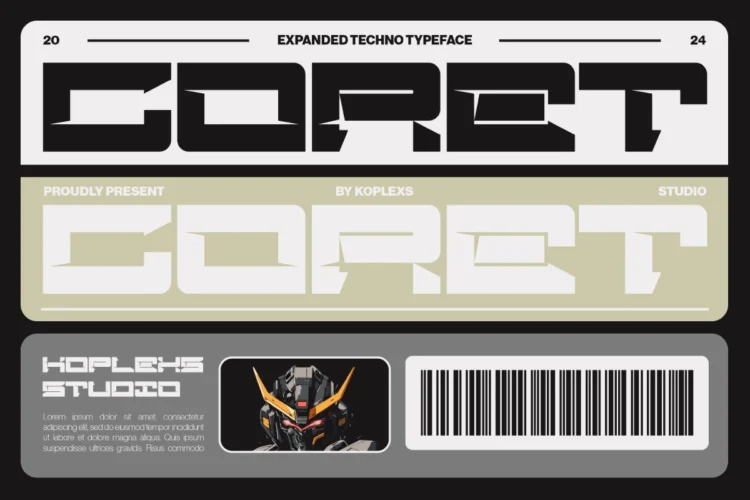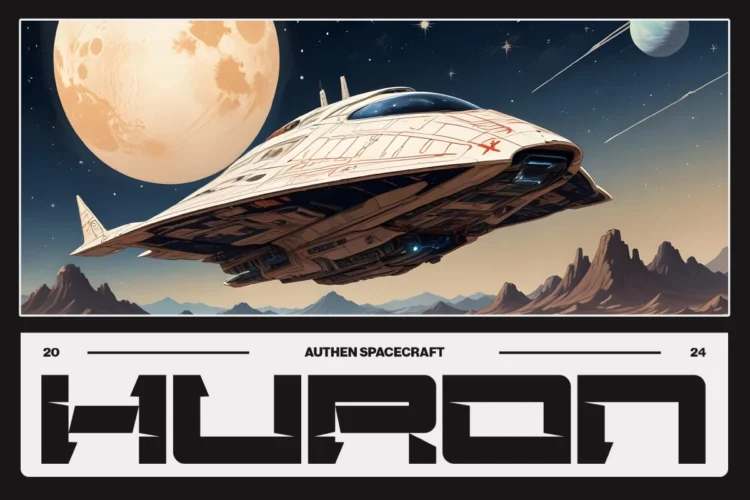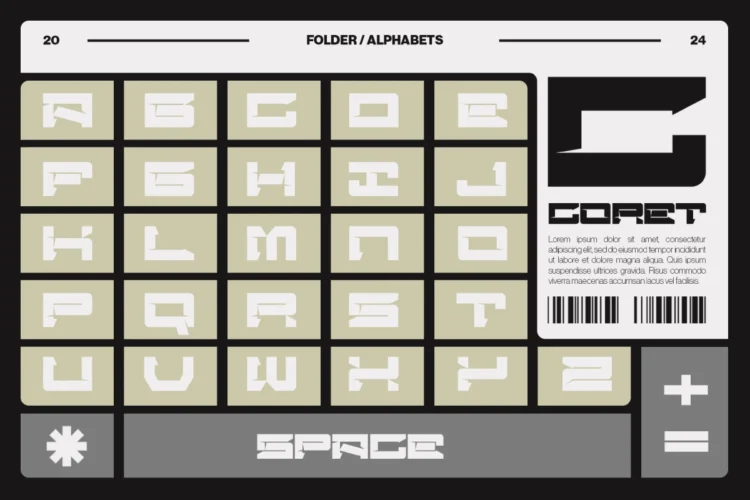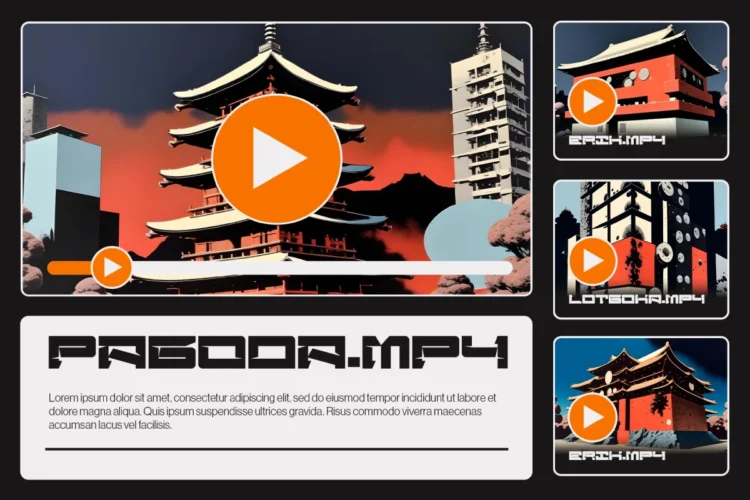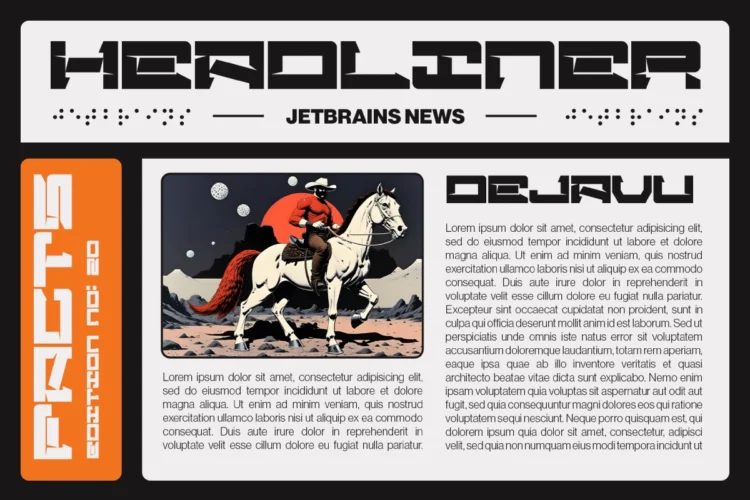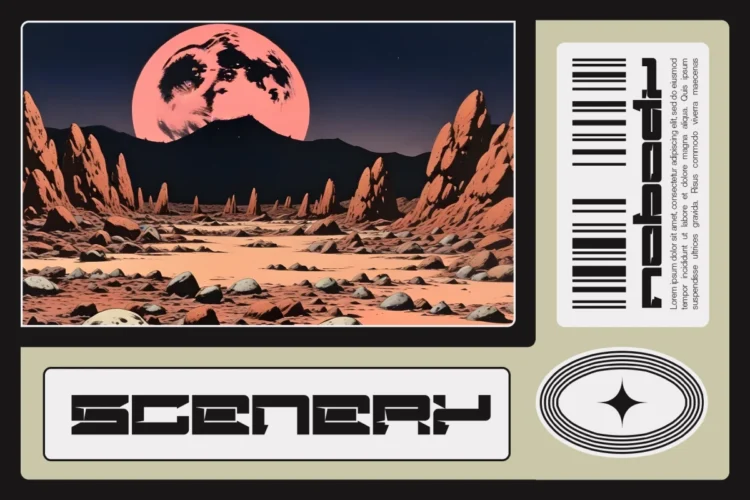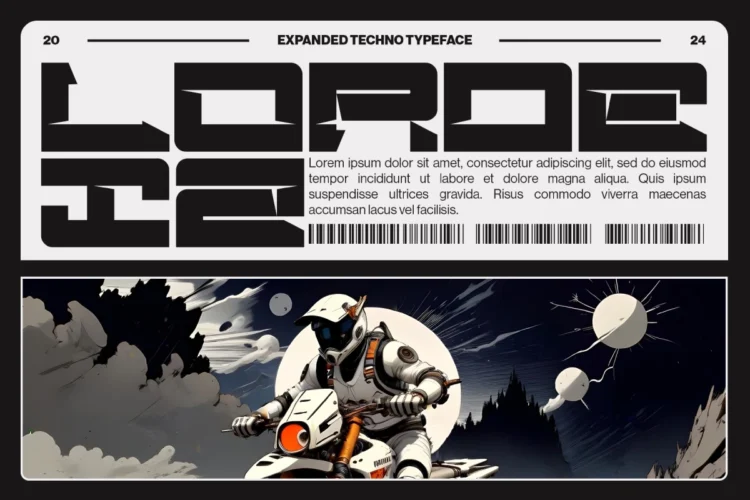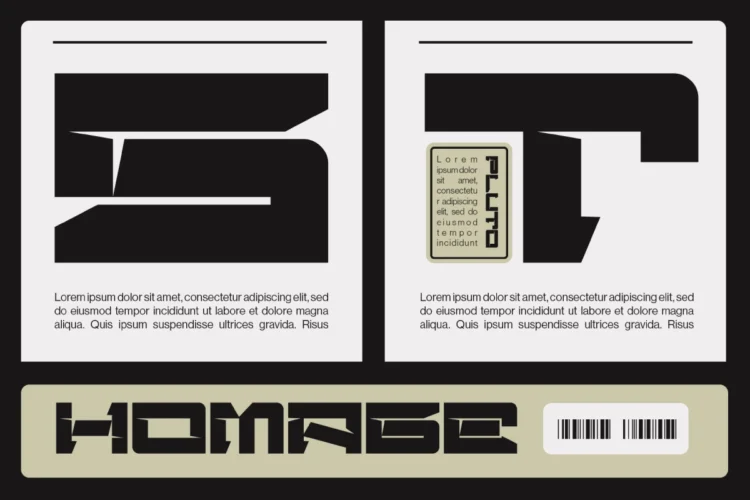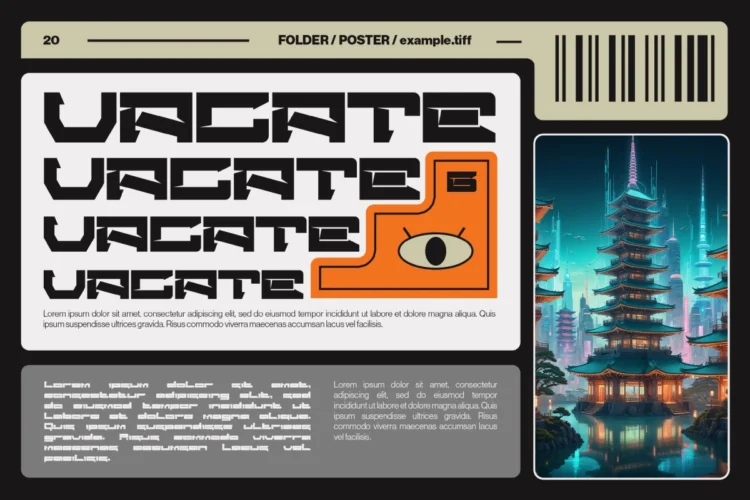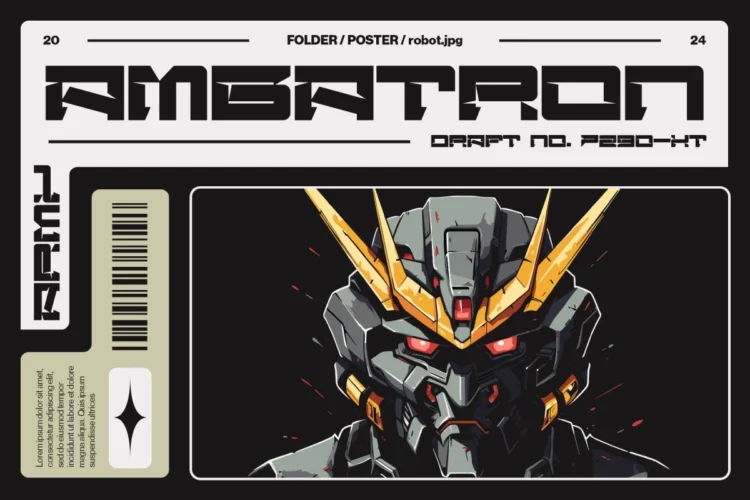
Coret Font
Coret Font – Futuristic Cyberpunk Tech Font for Modern Designs
Coret Font is an expanded futuristic font designed for creators who want to make bold statements in the cyberpunk and tech world. Its sharp angles, geometric cuts, and clean sans serif structure make it a standout choice among modern tech fonts. Whether you’re designing for games, science fiction themes, or digital interfaces, Coret Font brings a unique, futuristic edge that instantly elevates your work.
Coret Font is versatile and works beautifully for :
• Game Fonts – Ideal for sci-fi, racing, and cyber-themed game titles.
• Logo Fonts – Make your brand identity look futuristic and cutting-edge.
• Headline Fonts – Eye-catching style for magazine covers, posters, and tech blogs.
• UI/UX Design – Great for futuristic dashboards, apps, and software branding.
• Science Fonts & Tech Projects – Perfect for presentations, lab visuals, and AI interfaces.
• Merch & Branding – Enhance apparel, stickers, and digital collectibles with a bold sci-fi flair.
✨Coret Font Features:
• Style: Expanded, blocky, and modern
• Category: Sans Serif / Display / Futuristic Font
• Inspiration: Futuristic machines, cyber aesthetics, and digital architecture
• Includes: Uppercase, numbers, punctuation, and multilingual support
✦ Why Choose Coret Font?
Coret Font isn’t just a typeface it’s a design tool built for visionaries. Whether you’re building a cyber world, crafting a futuristic brand, or developing a next-gen game interface, this font delivers impact, clarity, and innovation in every letter.
Coret Font is a bold futuristic font inspired by cyberpunk and sci-fi aesthetics. Perfect for tech logos, game titles, headlines, and modern branding, this sans serif font combines strong geometric forms with a cutting-edge design language. Ideal for digital projects, posters, and UI designs seeking a high-tech and science fiction vibe.